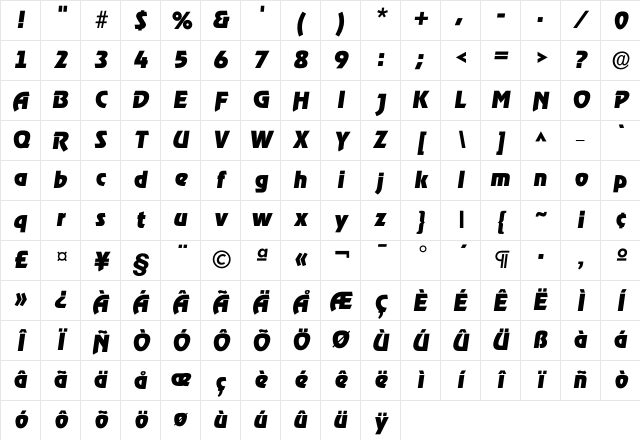
Complete Iragtime ExtraBold glyph index. Displaying only characters natively supported by Iragtime ExtraBold font.
Iragtime is a composed and adaptable typeface that performs quietly and consistently across a wide range of design contexts. Its bold stroke weight gives it real presence on the page.